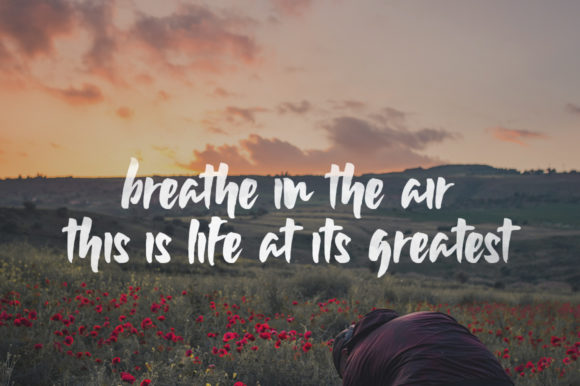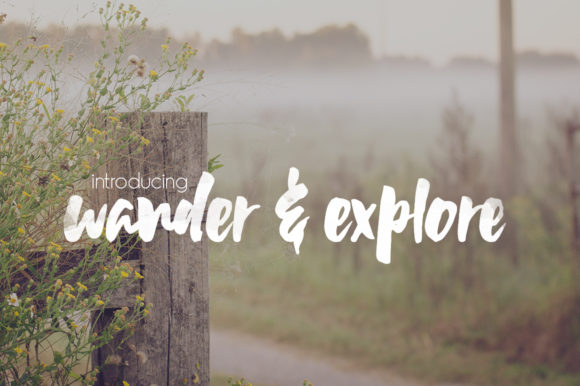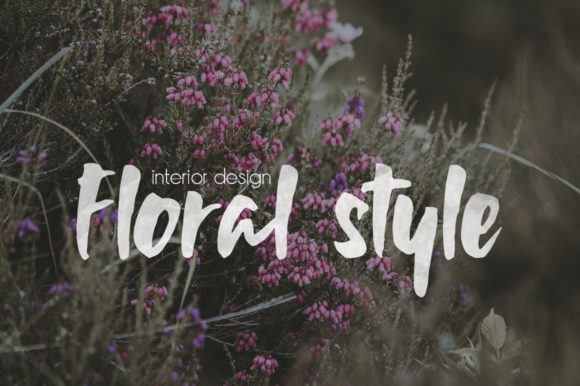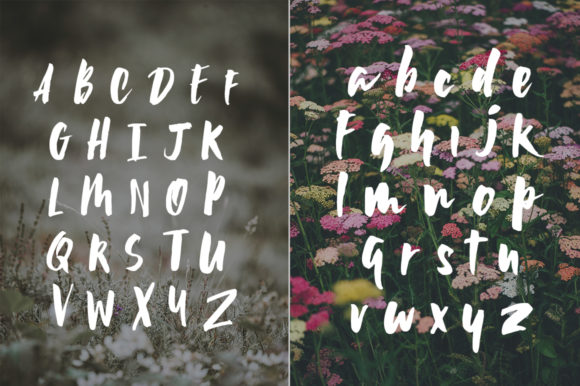
HomeScript FontsWildflower Font Script Fonts Wildflower Font FacebookTwitterPinterestWhatsApp Wildflower Font Poster 2 Wildflower Font Poster 3 Wildflower Font Poster 4 Wildflower Font Poster 5 Wildflower Font Poster 6 About Wildflower Font Wildflower is a stunning and adventurous script with a rare beauty. DOWNLOAD NOW People also explored Bogiidarka Font Charmilla Font Heyline Beauty Bold Script Kashirun Font Camilla Font Feelsmooth Font Funny Day Font Prins Font Christmas Memories Font 136 0 TagsWildflower Font Previous articleQueenetha FontNext articleArthegos Font LEAVE A REPLY Cancel reply Comment: Please enter your comment! Name:* Please enter your name here Email:* You have entered an incorrect email address! Please enter your email address here Website: Save my name, email, and website in this browser for the next time I comment. Personal Use Free Bright Dreams Personal Use Free Read more about this font Doodle Font Personal Use Free Read more about this font Makeba Font Personal Use Free Read more about this font Open Store Personal Use Free Read more about this font BLOG To increase your work productivity, choose the most readable fonts. In today's fast-paced work environment, where digital communication and information consumption are integral to our daily routines, the choice of fonts can significantly impact... Elegant Wedding Invitation Fonts – Handwritten & Script Fonts The 10 Best Handwriting Fonts to Add Personality to Your Designs Using Fonts in Digital Marketing: Tips to Strengthen Your Brand Identity